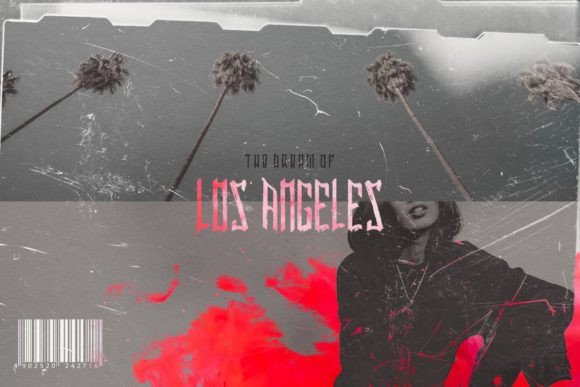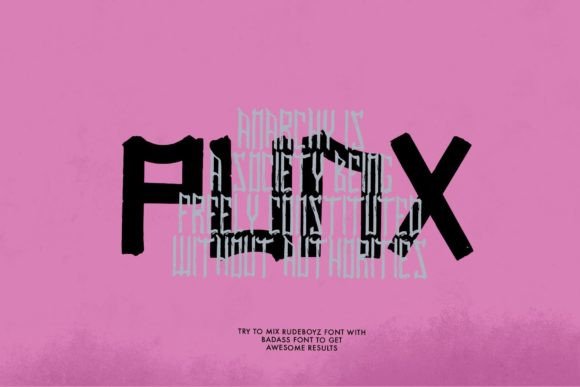
Introduction to Rudeboyz Font
Rudeboyz is a cool display font that successfully combines the Gothic style with trendy urban-inspired graffiti typography.
Add it confidently to your creative projects and you will be amazed by the generated outcome .
Key Features of Rudeboyz Font